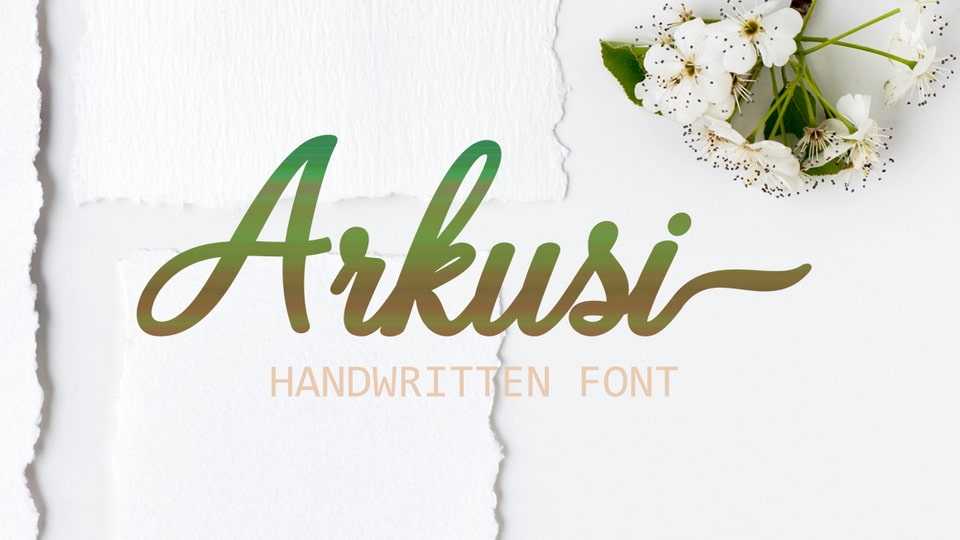
Download Arkusi font, a neatly crafted and highly detailed script. Whatever the topic, this font will be a wonderful asset to your font library, as it has the potential to enhance any creation.